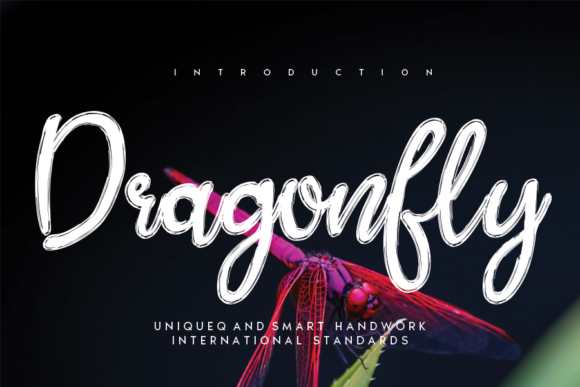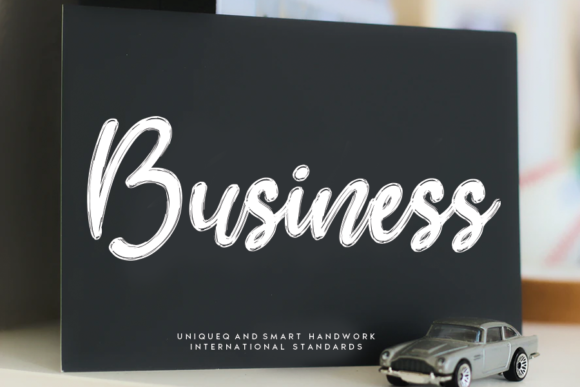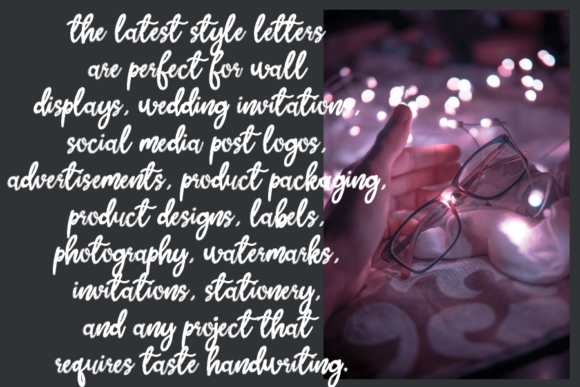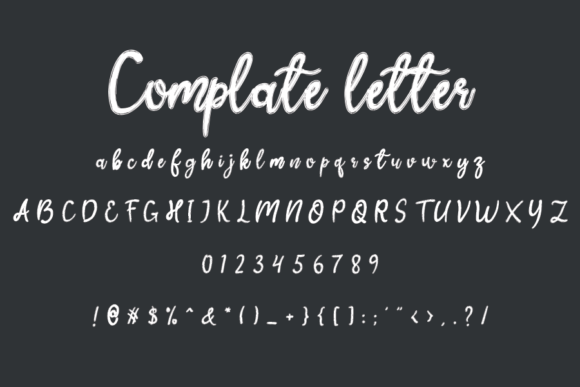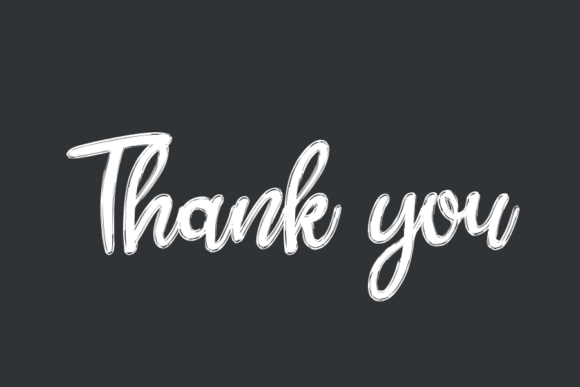
Dragonfly Font
About Dragonfly Font
Dragonfly sounds like a delightful and versatile handwritten font that exudes a friendly and approachable vibe. Its casual yet charming style makes it the perfect choice for various design projects, whether it’s for social media graphics or creative DIY endeavors. Here are some ways you can use Dragonfly to turn your creative ideas into true pieces of art:
1. Social Media Graphics: Utilize Dragonfly to create eye-catching and engaging posts for Instagram, Facebook, Twitter, and other social media platforms. Its friendly feel will resonate with your audience and add a personal touch to your content.
2. DIY Projects: Incorporate Dragonfly into DIY craft projects such as greeting cards, party invitations, handmade gifts, and scrapbooking. Its handwritten charm will add a unique and heartfelt element to your creations.
3. Branding: Use Dragonfly to design a playful and approachable brand identity for your business or personal brand. From logos to packaging, Dragonfly will make your brand stand out.
4. Quotes and Typography Art: Create beautiful quote graphics and typography art with Dragonfly’s friendly and casual handwritten style. Share motivational and inspirational messages that resonate with your audience.
5. Blog Graphics: Add a touch of whimsy to your blog posts by using Dragonfly in headers, featured images, and other blog graphics.
6. Stationery: Design fun and inviting stationery sets, including notepads, letterheads, and envelopes, using Dragonfly’s friendly font.
7. Children’s Books: Incorporate Dragonfly into the typography for children’s books to enhance the reading experience and captivate young readers.
8. Party Decorations: Create adorable party decorations such as banners, place cards, and favor tags with Dragonfly’s cute and casual font.
9. Personal Branding: Apply Dragonfly to personal branding materials, such as personal websites, business cards, and email signatures, to reflect your friendly and approachable personality.
10. Handmade Labels: Use Dragonfly to label your handmade products, adding a touch of warmth and personality to your creations.
11. Greeting Cards: Design heartwarming and cheerful greeting cards for various occasions using Dragonfly’s friendly and cute handwritten font.
12. Art Prints: Create playful and whimsical art prints with Dragonfly’s casual and approachable style, perfect for home decor or gifting.
13. Invitations: Design playful and creative invitations for parties, events, or special occasions with Dragonfly’s friendly feel.
14. Educational Materials: Use Dragonfly in educational materials, worksheets, and activities to make learning a joyful and inviting experience.
15. Website Headings: Incorporate Dragonfly into website headings and banners to create a welcoming and friendly online presence.
16. Apparel Designs: Apply Dragonfly to apparel designs, such as T-shirts or tote bags, for a casual and artistic touch.
17. Social Media Quotes: Create shareable quote graphics for social media platforms, spreading positivity and inspiration with Dragonfly’s friendly font.
18. Product Packaging: Use Dragonfly in product packaging to add a personal and handmade touch to your products.
19. Restaurant Menus: Apply Dragonfly to restaurant menus to create a warm and inviting atmosphere for diners.
20. Handwritten Notes: Use Dragonfly to create handwritten notes and messages that convey genuine warmth and care.
In summary, Dragonfly’s cute and casual handwritten style makes it a versatile font suitable for various design projects. From social media graphics to branding and DIY crafts, Dragonfly will infuse your creations with a friendly and artistic touch. Embrace the charm of Dragonfly and watch your creative ideas turn into true pieces of art that resonate with your audience and spread joy.